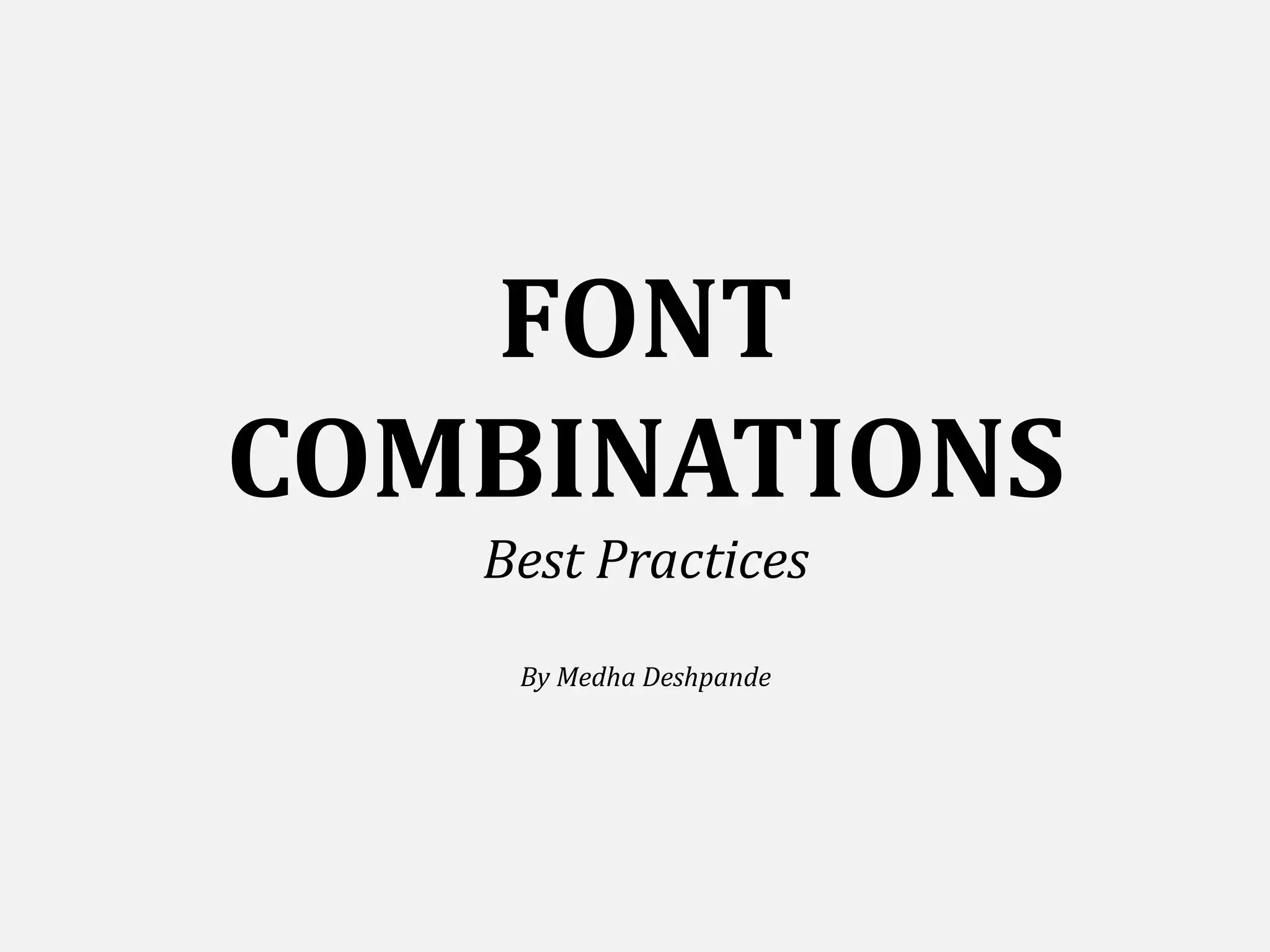
Medha Deshpande outlines best practices for font combinations, emphasizing the distinction between serif and sans serif fonts and the importance of contrasting font weights. She suggests pairing fonts from the same family for modern, web-friendly designs and highlights the significance of point sizes for titles and body text. The document also notes that a larger x-height contributes to better readability.